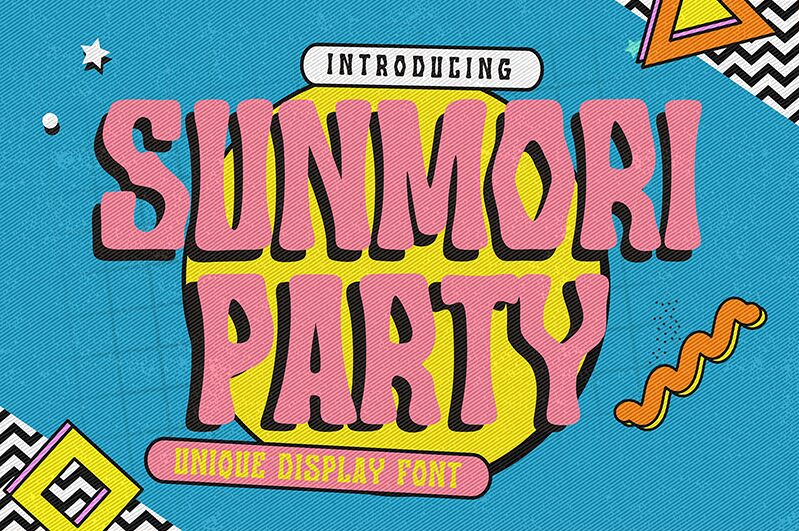
Sunmori Party
Sunmori Party by Gassstype stands out as a bold, condensed display font with a groovy style that effortlessly brings modern flair and dramatic movement to any creative project. Its casual and quick-written appearance makes it an exceptional choice for those seeking an authentic and unique touch. Ideal for crafting eye-catching labels, dynamic posters, or contemporary branding, this font is versatile enough to elevate your design work.
With its textured elegance and natural look, Sunmori Party invites a sense of vibrancy to packaging, greeting cards, websites, and photography overlays. It's not just about making words seen; it's about creating an experience that resonates with the audience. Whether you're looking to add some zest to scrapbooking endeavours or aiming for standout tags that capture attention-Sunmori Party delivers on all fronts. Embrace the captivating charm of this one-of-a-kind typeface for your next design adventure!